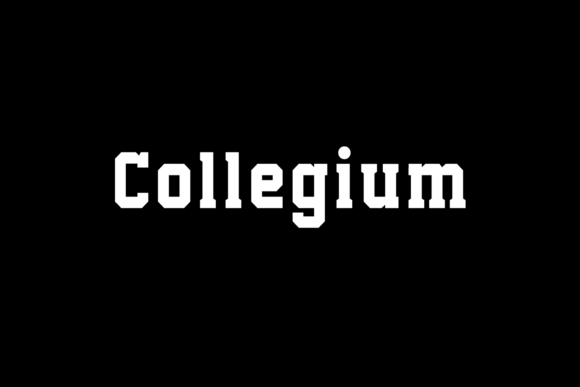
The Perfect Blend of Sport and Style: Introducing Collegium Font
Have you ever been scrolling through a sports website or a college blog and been struck by the bold, modern lettering that seems to leap off the page? That’s exactly the kind of creative spark that inspired the development of Collegium Font – a font family that captures the essence of college and university sportswear lettering.
Designed with readability in mind, Collegium Font is perfect for adding a touch of modern sophistication to your designs. Whether you’re working on a sports-themed project or just want to give your brand a fresh, youthful vibe, this versatile font family has got you covered.
Collegium Font Key Features
- Font Family: Collegium Font is a modern serif font family designed for both body text and display typography.
- Character Count: Collegium Font contains 750 characters, including Latin, Cyrillic, and Greek alphabets, as well as punctuation and symbols.
- Size: Collegium Font is available in 6 weights, ranging from Light to Black, with corresponding italic and bold-italic versions.
- Unique Characteristics: Collegium Font features a unique blend of modern and traditional typography, with subtle flair and elegance, making it perfect for academic, publishing, and design projects.
Collegium Font Review
Overall, Collegium Font is a solid choice for designers looking for a versatile font family. Here’s what works well: ✨ It’s highly legible, making it perfect for body text and long reads. ✨ The font family is extensive, covering a wide range of weights and styles, from light to bold. ✨ The design is elegant and refined, suitable for both modern and traditional projects.
However, there are some limitations to consider: ⚠️ The font may not be as distinctive or attention-grabbing as some other options. ⚠️ Some users may find the design too safe or conservative, lacking a strong personality. ⚠️ The font family is not optimized for very small text sizes, which can lead to readability issues.
- Highly legible and readable
- Extensive font family with multiple weights and styles
- Elegant and refined design
- Not optimized for very small text sizes
- May not be distinctive or attention-grabbing
Overall, Collegium Font is a reliable and versatile choice for designers. While it may not be the most exciting option, it’s a solid choice for projects where readability and elegance are top priorities.
Collegium Font: A Practical Application Guide
Tips for Getting the Most Out of Collegium Font
Here are a few tips for getting the most out of Collegium Font:
- Use Collegium Font in combination with other fonts to create a unique and cohesive design.
- Adjust the font color to match your design’s color scheme.
Collegium Font is ideal for use in:
- Choose a elegant background color, such as navy blue or dark gray, to complement the Collegium Font.
- Select a light-colored text color, such as white or cream, to create a high contrast effect.
- Use the Collegium Font for the main heading, such as your name and title, and a standard font for the secondary text, such as your contact information.
- Add a subtle texture or pattern to the background to give it a unique look.
- Use a simple icon or graphic element, such as a business card icon or a minimalist logo, to break up the text.
- Choose a rich, academic background color, such as burgundy or forest green, to complement the Collegium Font.
- Select a clean, sans-serif font, such as Arial or Helvetica, for the title and subtitle.
- Use the Collegium Font for the author’s name and publication information, adding a touch of elegance to the design.
- Add a classic, ornate border or frame to give the design a traditional feel.
- Use a simple, elegant
Collegium Font FAQs
What is Collegium Font?
Collegium Font is a modern sans-serif typeface designed for readability and versatility. It is suitable for various applications, including digital and print media, and is optimized for use in user interfaces, signage, and body text.
Creative Projects Using Collegium Font
Project 1: Elegant Business Card
Create a professional business card that showcases your personal style and brand identity using Collegium Font.
How to use Collegium Font:
Project 2: Academic Journal Cover
Create a sophisticated journal cover that showcases the Collegium Font in a scholarly setting.
How to use Collegium Font: